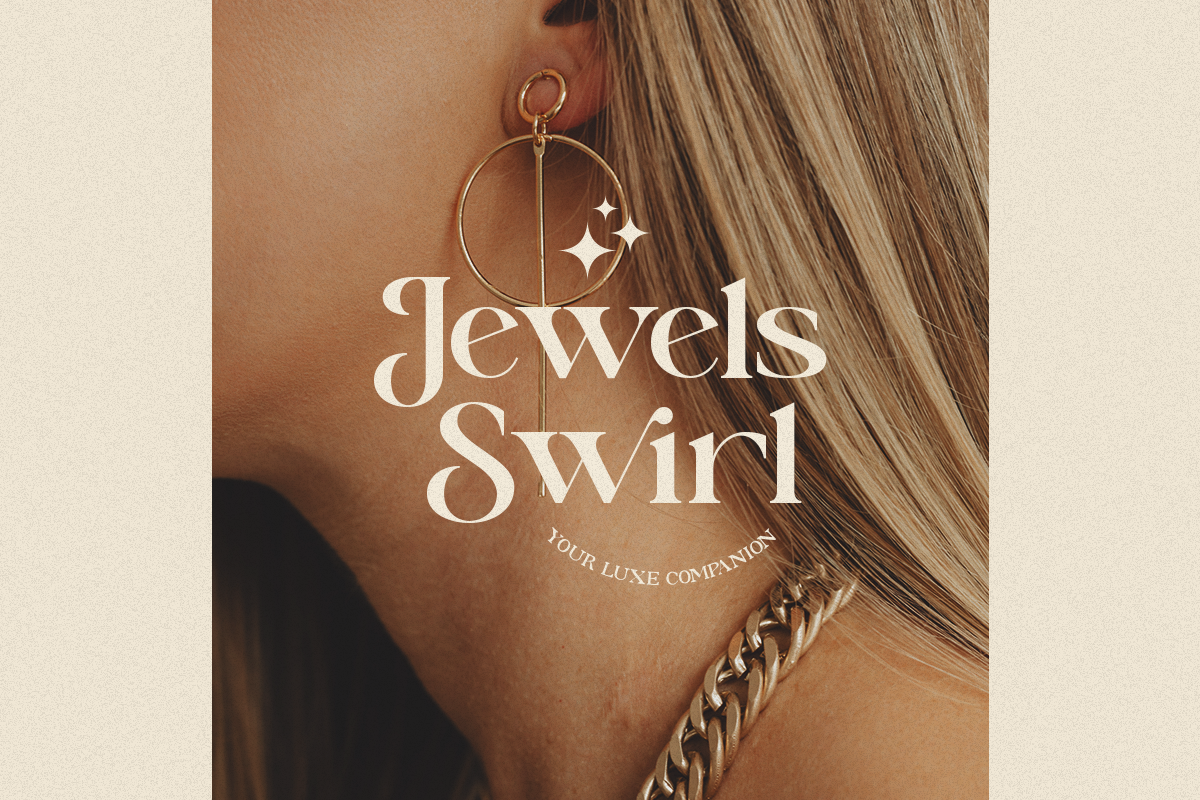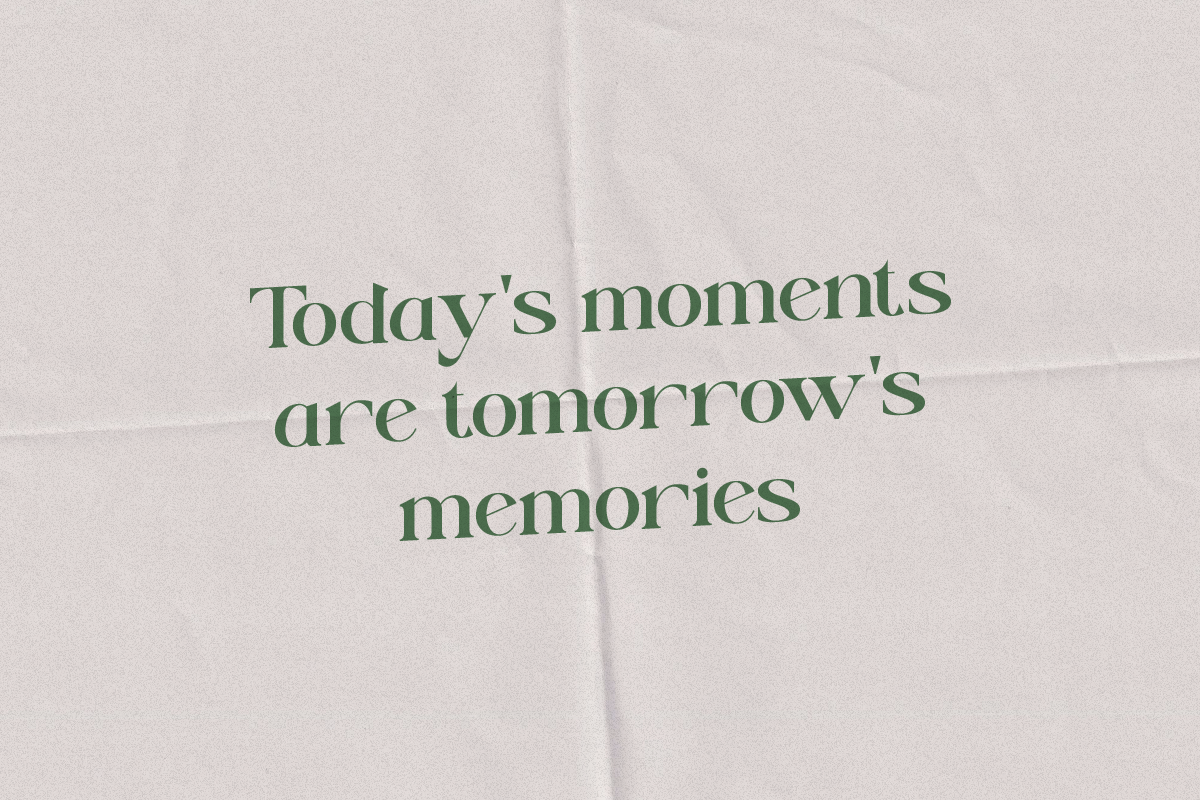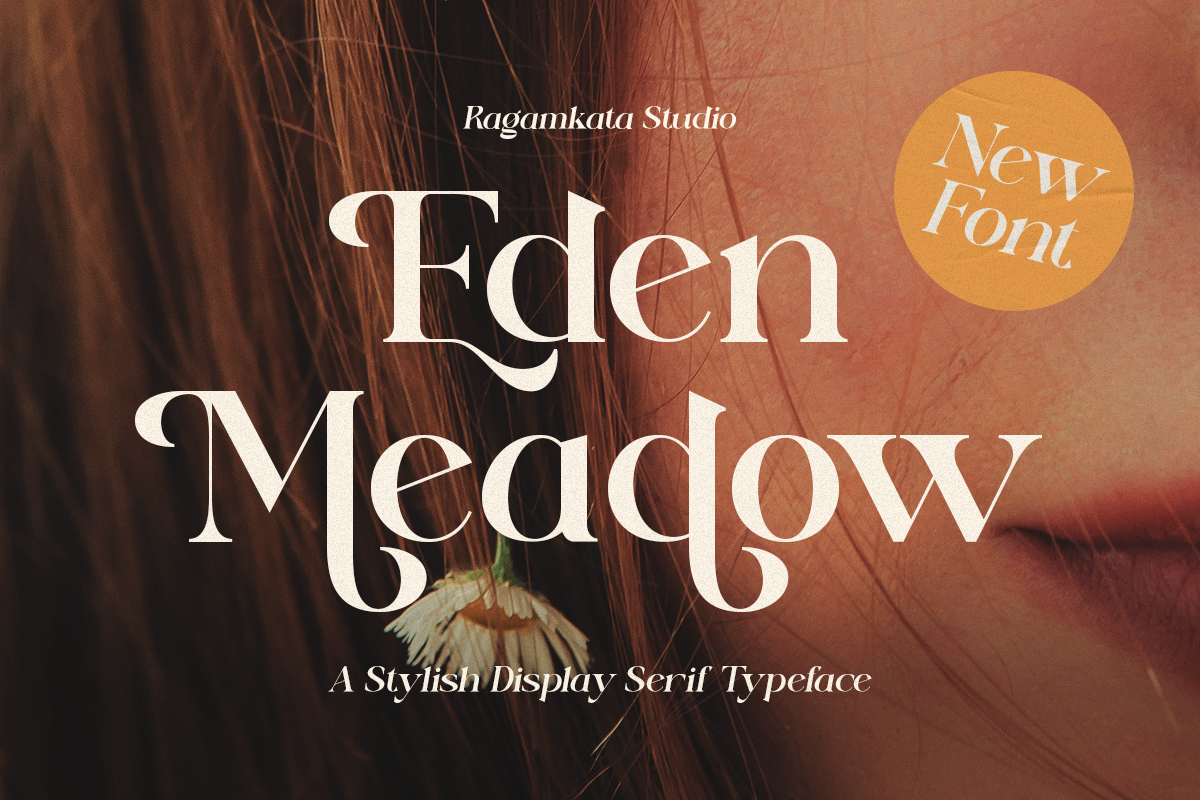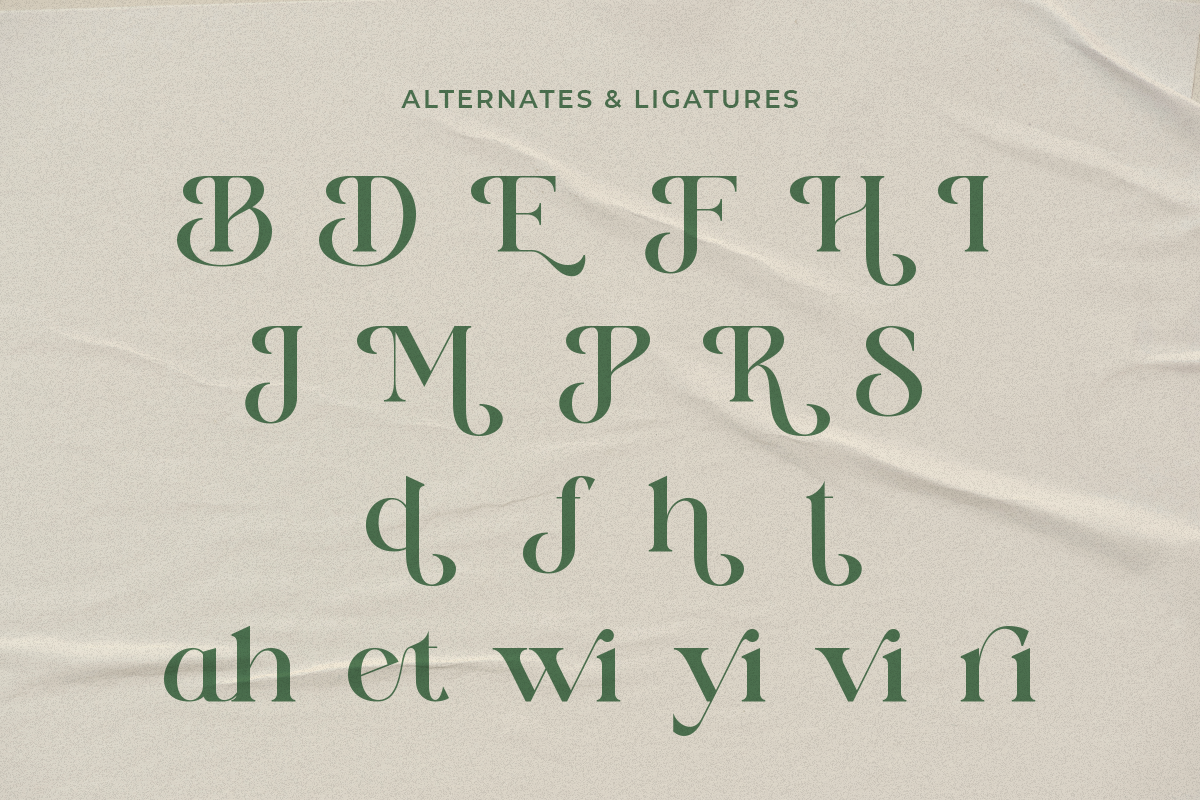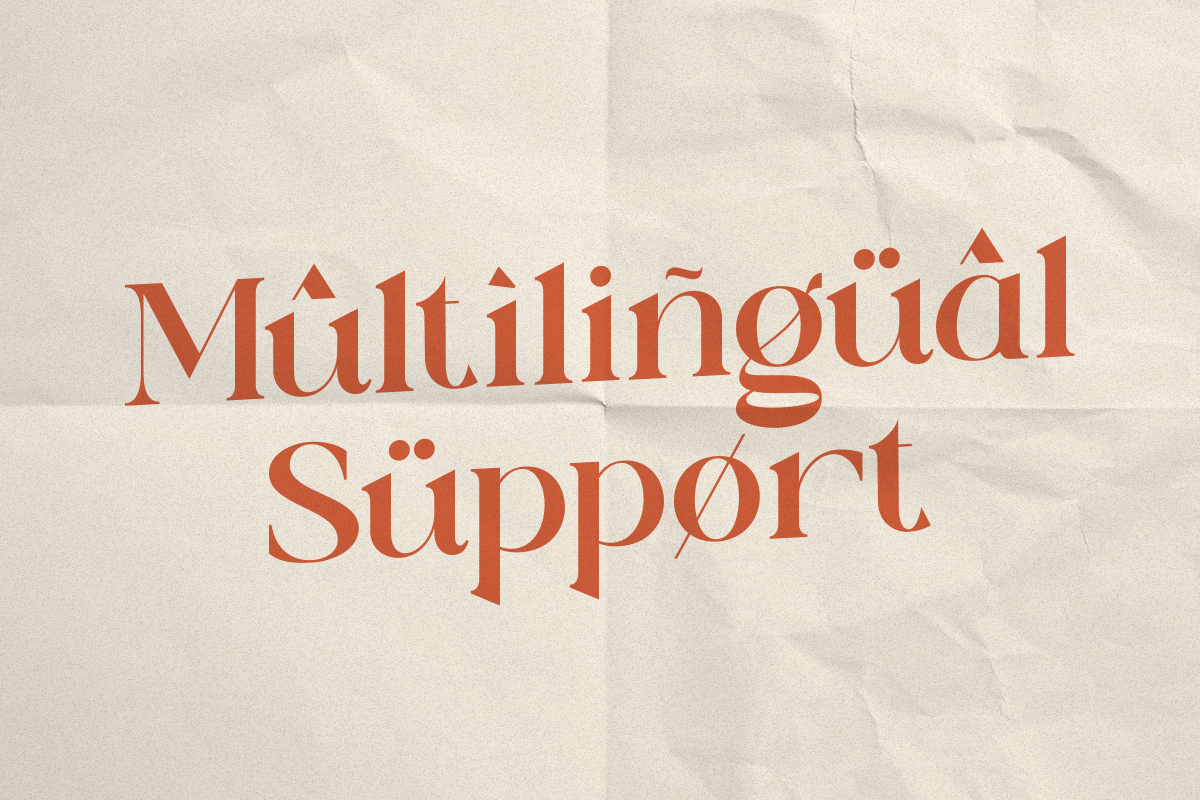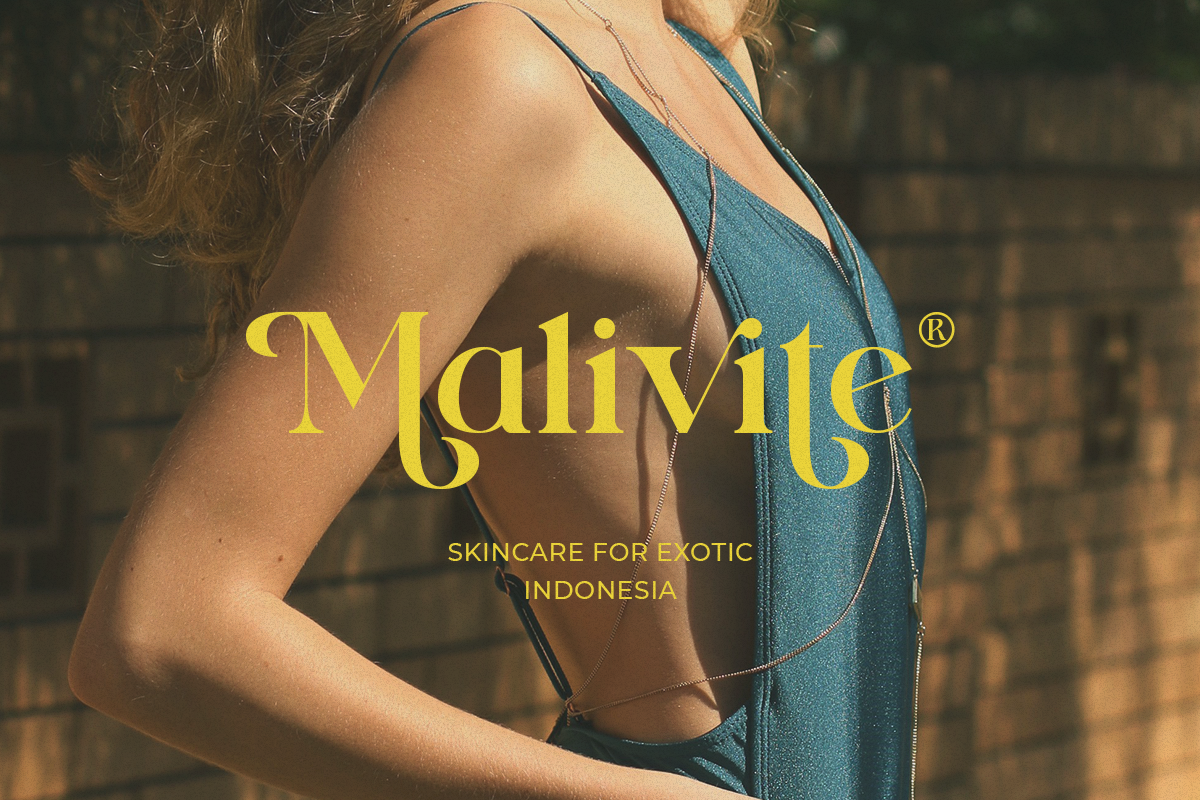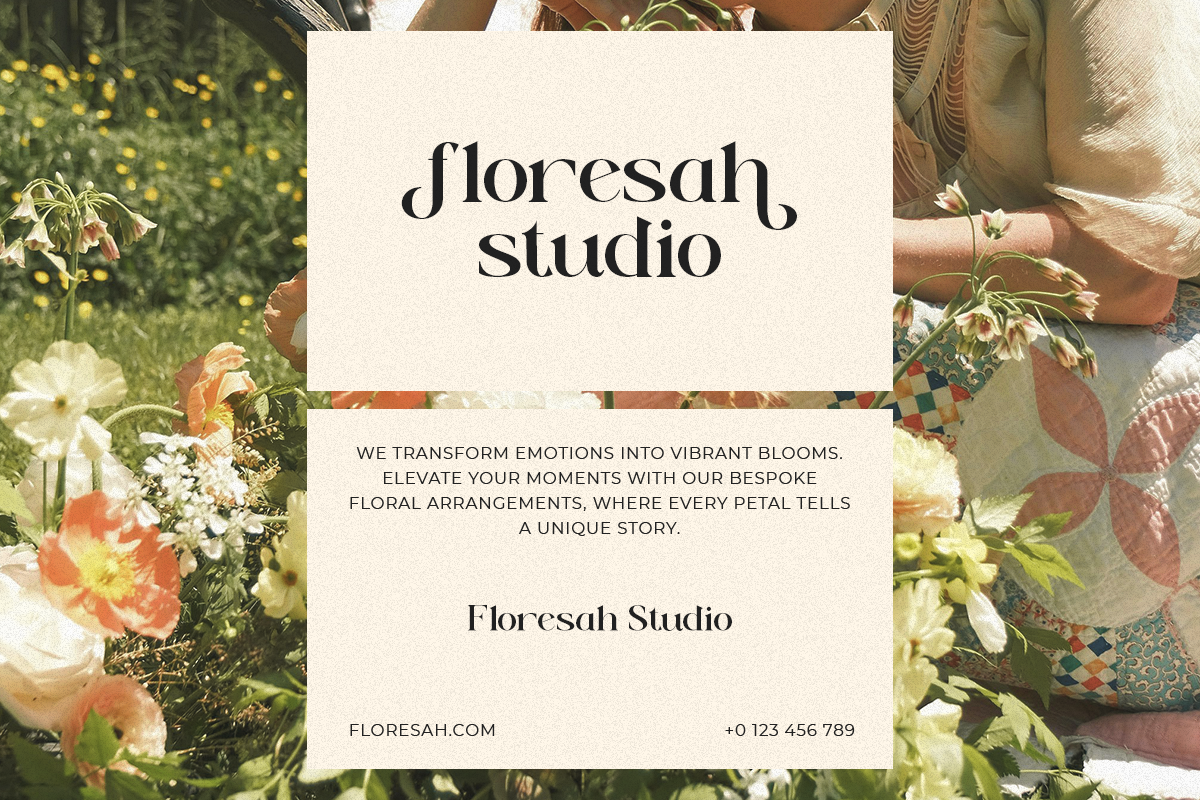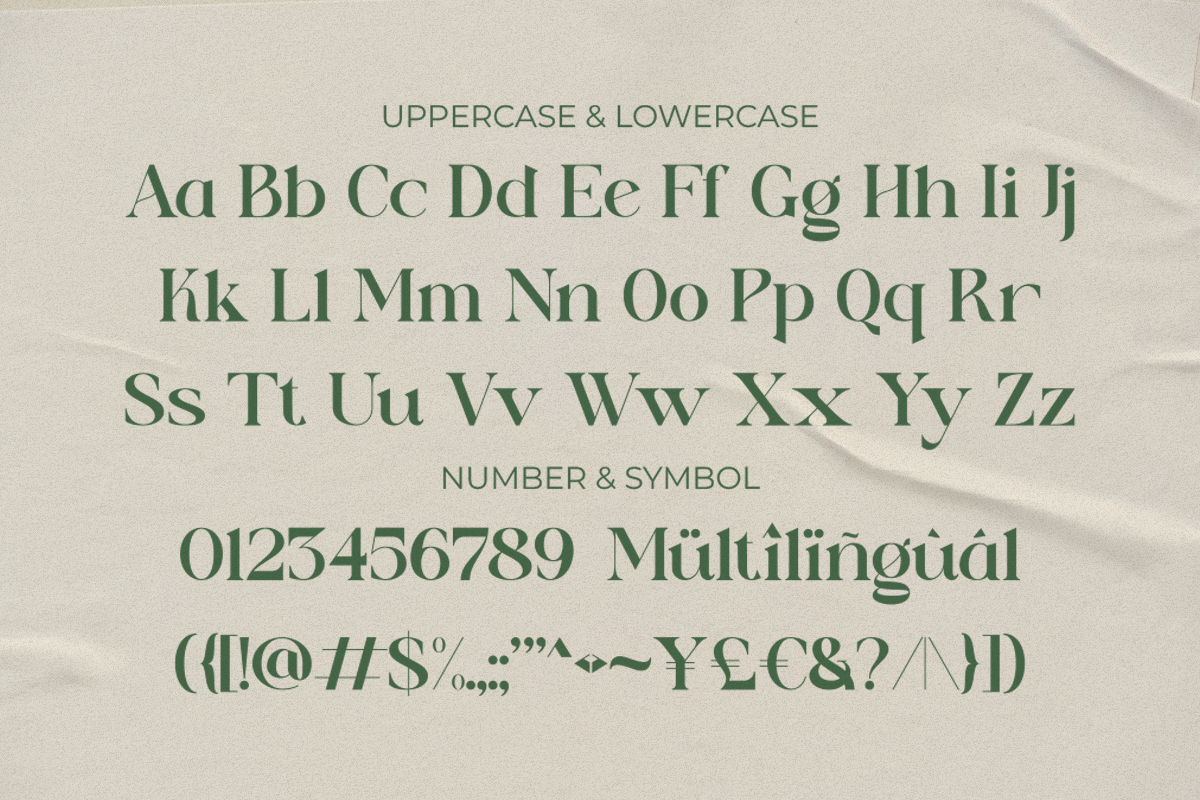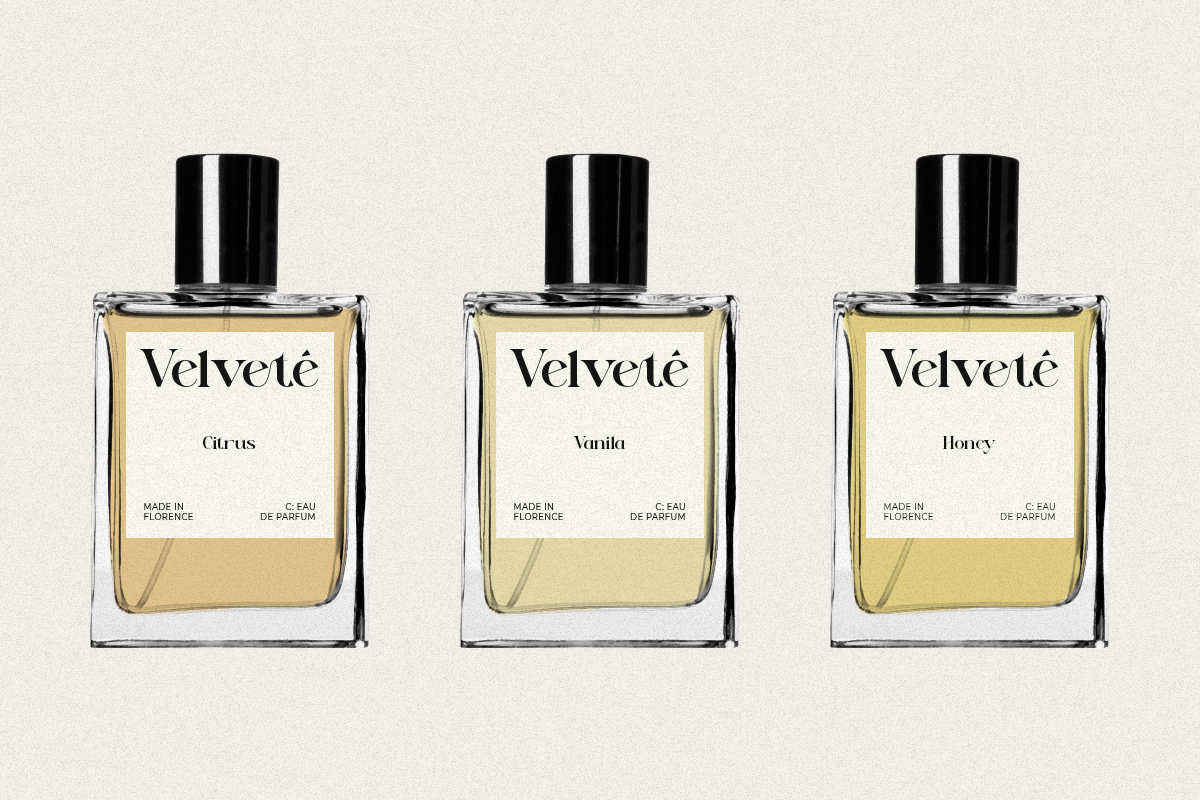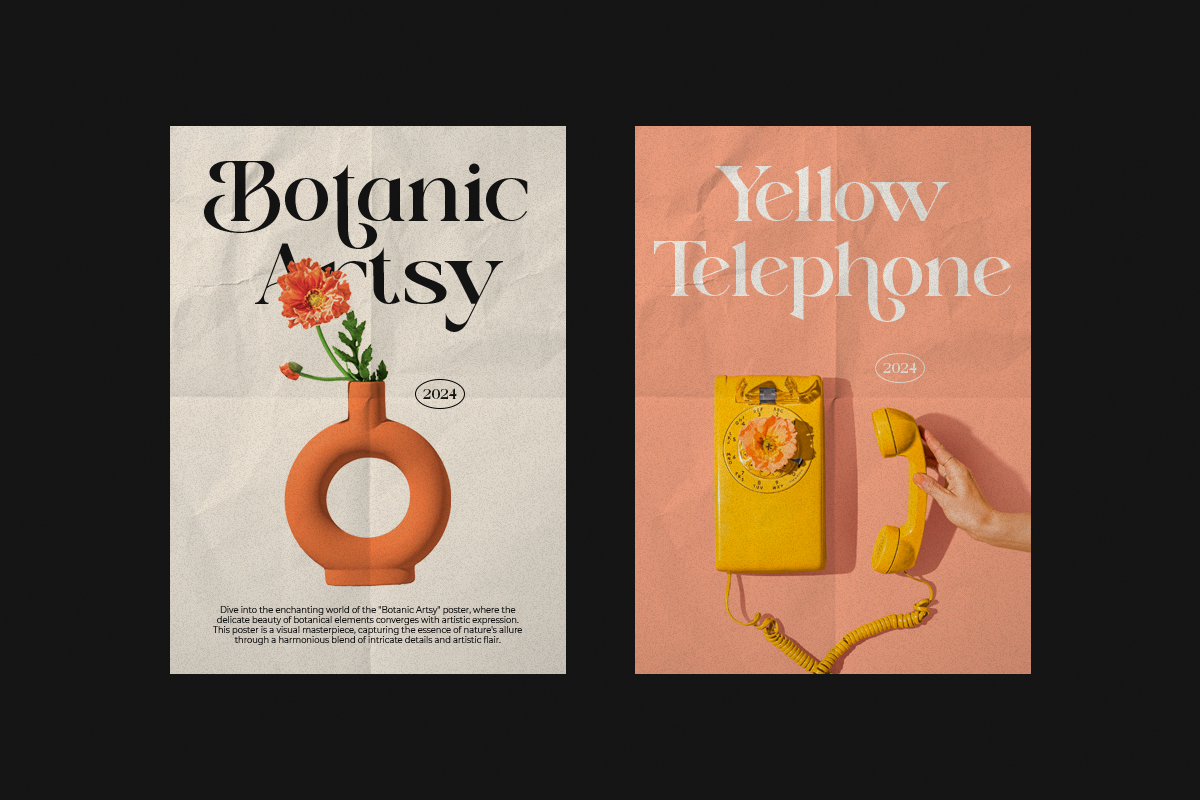
Eden Meadow - Stylish Serif Font
Modern Branding Typeface Eden Meadow is unique Font as it can be used for a variety of design styles. It fits in wonderfully for free-spirited, boho designs and also for more classy editorial looks!
There are a lot of fun stylistic alternates available to use with this font. These letters are embedded into the font file and easily accessible in programs such as photoshop and illustrator.
Eden Meadow Features: